29 Best Modern Serif Fonts for Stunning Designs in 2026
Modern Serif Fonts can make branding, editorial layouts, packaging, logos, and social graphics feel more polished without looking old-fashioned. This collection is for designers who want refined serif styles with fashion contrast, luxury details, bold display shapes, or softer handmade character.
Editorial & Fashion Modern Serif Fonts
These polished serifs use slim contrast, tall forms, and magazine-style proportions for fashion branding, covers, mastheads, and refined visual identities.
Milghera Serif Font
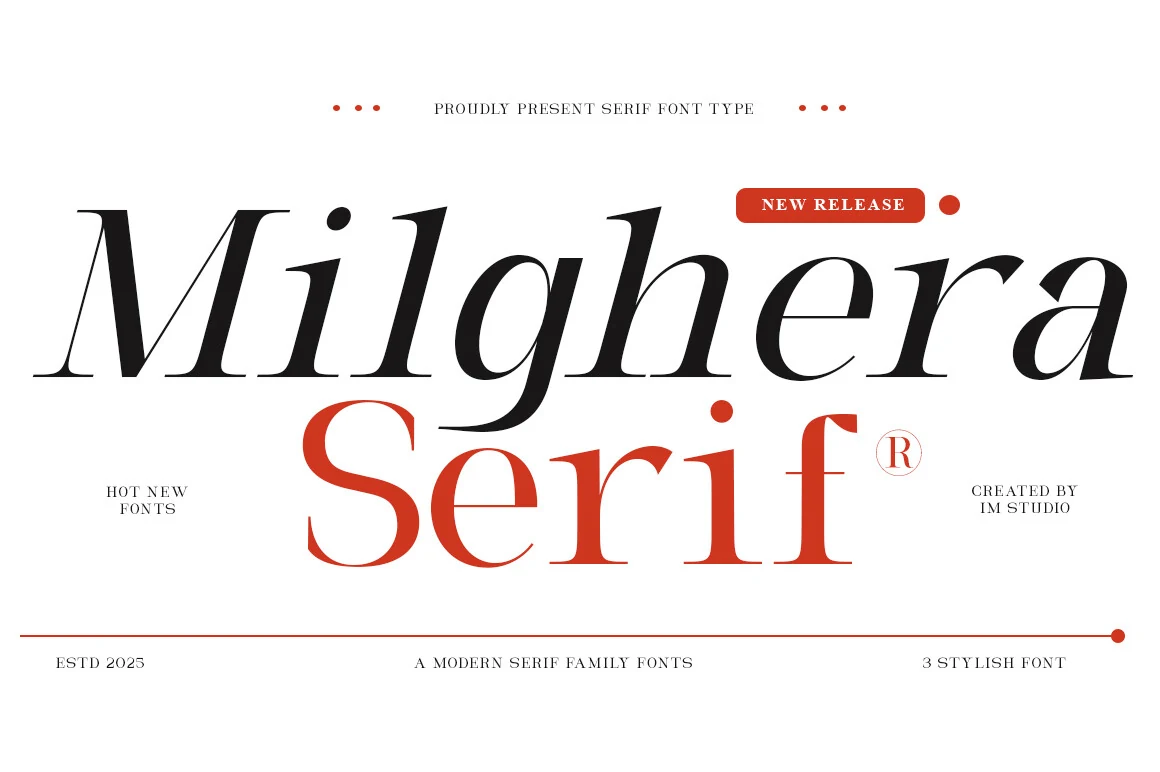
Best For: branding, magazine covers, fashion branding, editorial designs
Milghera Serif Font has the kind of high-contrast drama that feels instantly editorial. The letterforms are slim and elongated, with razor-thin hairlines, broad curves, and a softly slanted rhythm that gives headlines a polished fashion presence rather than a cold geometric look.
In a roundup of Modern Serif Fonts, Milghera stands out when you use its lighter style for oversized titles and bring in the bolder cut for supporting lines or brand marks. Keep tracking fairly tight and let the negative space do the work—those delicate serifs and sweeping joins read best in short, prominent text.
Wolmer Font
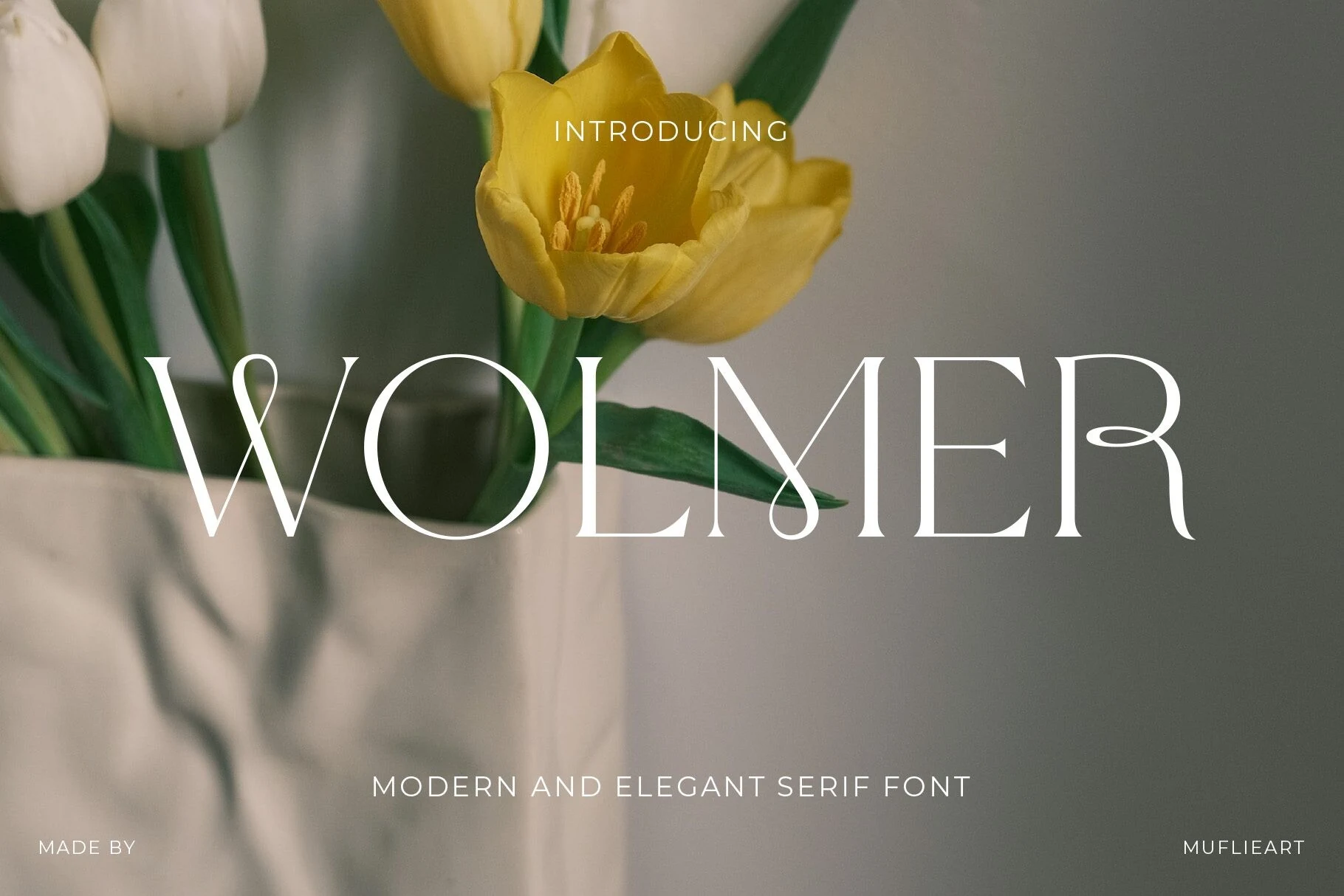
Best For: branding, magazine covers, fashion branding, editorial designs
Wolmer Font has a refined editorial presence built on tall proportions, crisp contrast, and beautifully fluid detailing. The preview shows slender stems paired with sweeping teardrop terminals and unusual crossbar connections, so even a single word feels styled rather than merely set.
If you are collecting Modern Serif Fonts with a fashion-led tone, Wolmer is strongest in large display sizes where those curved joins and airy counters stay visible. Keep body copy separate and let Wolmer handle the headline layer, especially in layouts that need soft luxury without losing structure.
Things Font
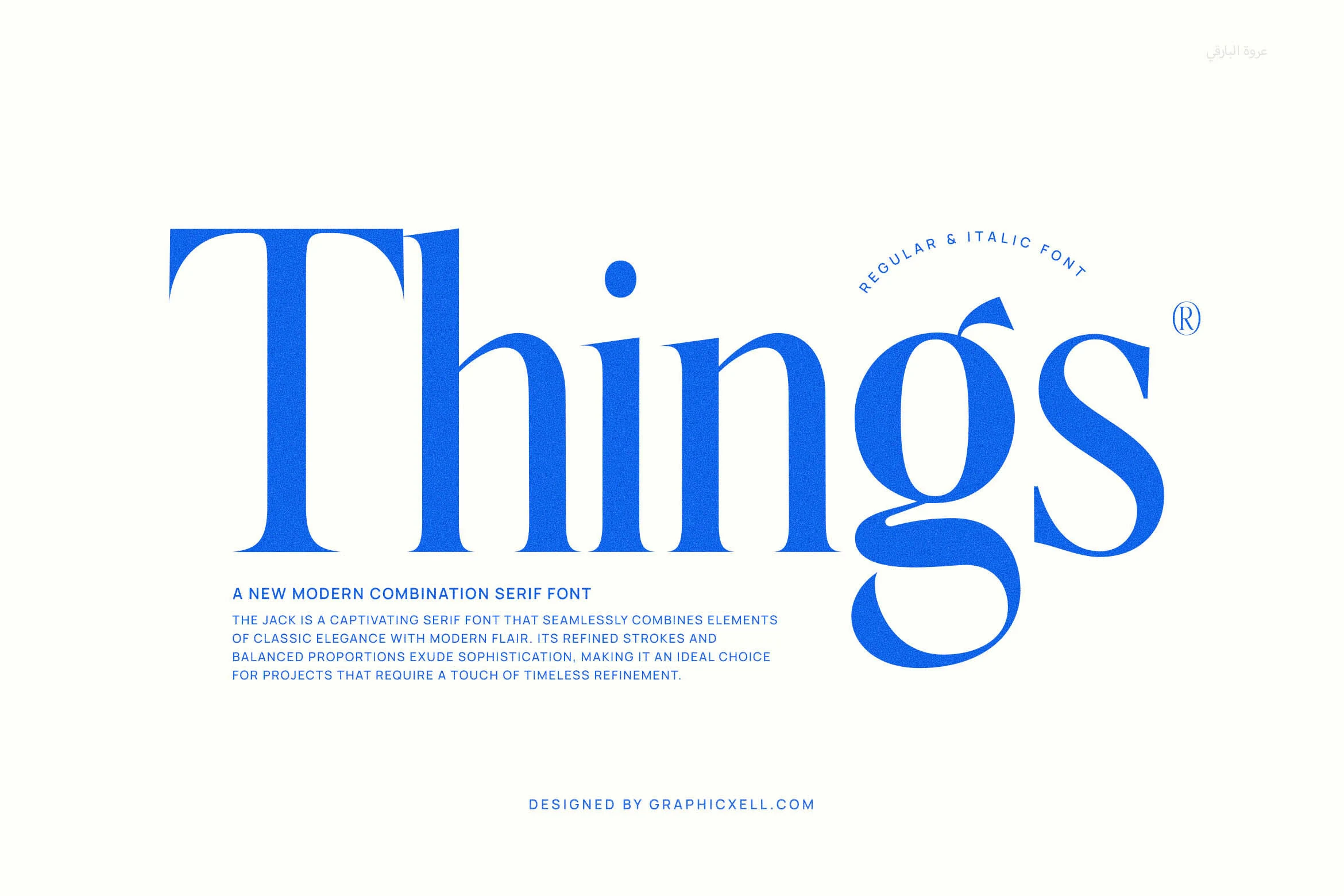
Best For: branding, magazine covers, headlines, editorial designs
Things Font has a sleek editorial feel, with tall stems, sharp contrast, and smooth curves that keep the serif structure elegant rather than severe. The oversized capital T and the sculpted tail on the g give it a stylish rhythm, while the clean proportions help the wordmark feel polished and modern.
For Modern Serif Fonts roundups, Things stands out in headlines, covers, and brand titles where the letterforms have room to breathe. It performs best in short phrases at larger sizes, and slightly relaxed spacing helps those fine joins and dramatic curves stay crisp instead of closing up.
Grandeur – Elegant Classic Serif Font
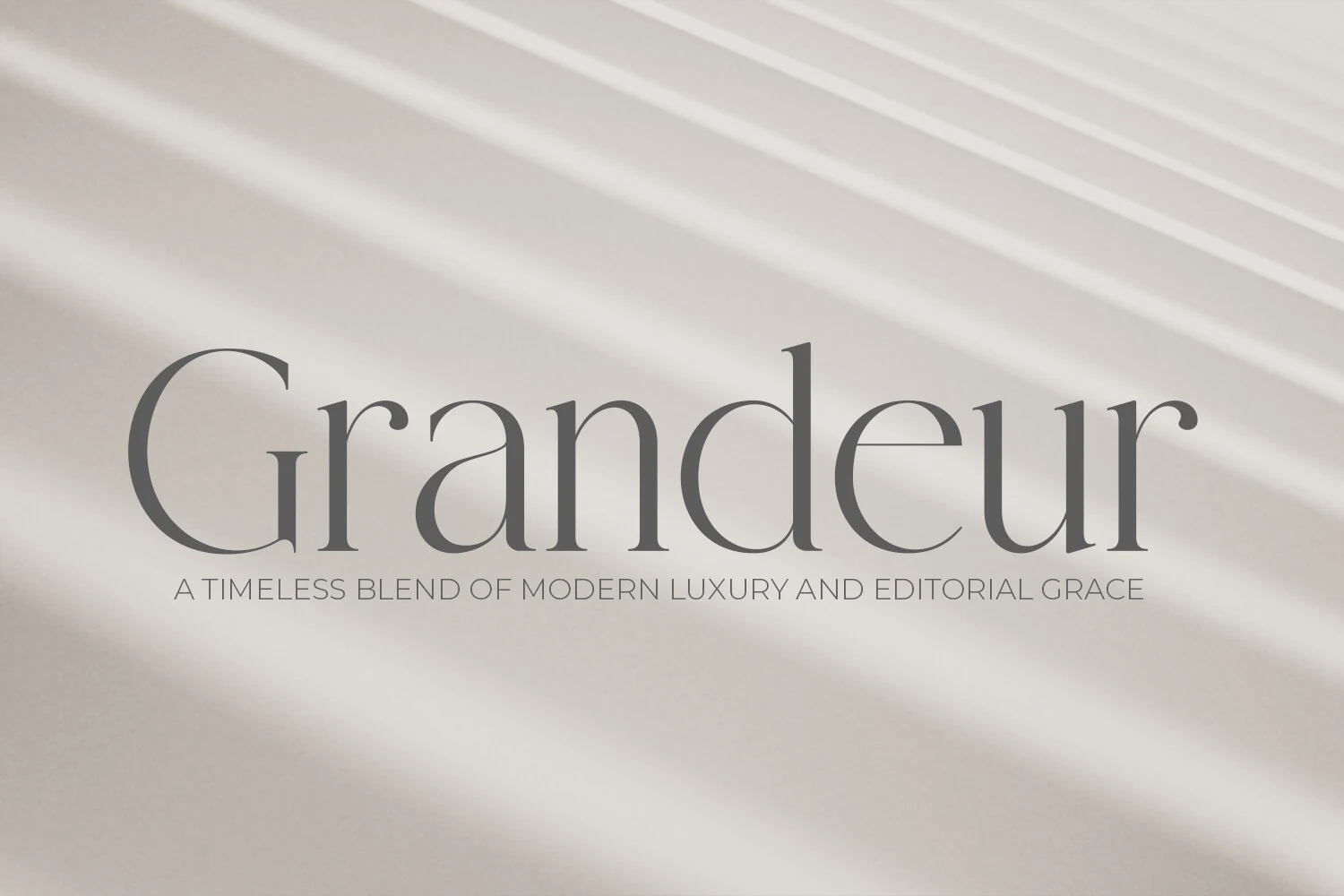
Best For: branding, magazine covers, editorial designs, luxury designs
Grandeur has a calm, polished presence built from slim high-contrast strokes, tall ascenders, and wide open counters. The letterforms feel lightly sculpted rather than ornate, which gives the serif a refined print character with a softer, more contemporary finish.
For anyone collecting Modern Serif Fonts with an editorial slant, Grandeur shines in titles, mastheads, and upscale branding where its proportions can stay visible. Give it generous scale and clean surrounding typography, and the delicate joins and elongated curves will carry the hierarchy beautifully.
Editorium Serif Font
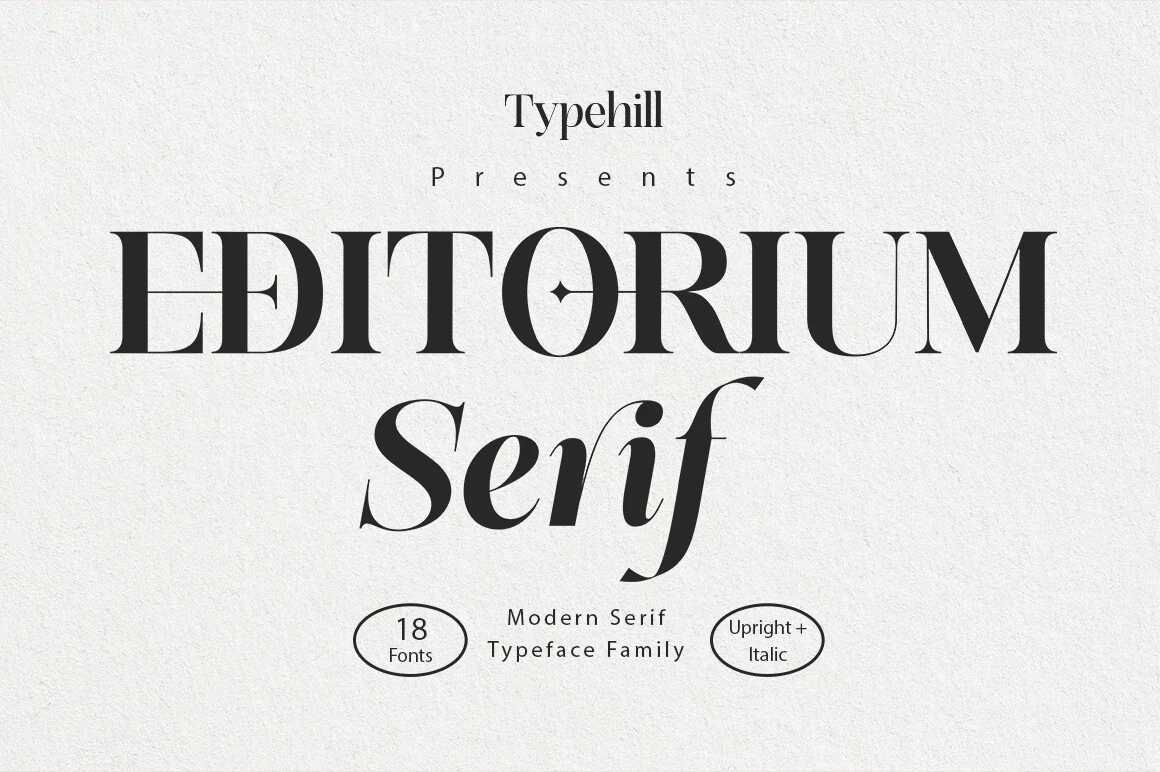
Best For: editorial designs, magazine covers, branding, headlines
Editorium Serif Font leans into a polished editorial look, pairing tall high-contrast capitals with a softer italic companion that adds movement without losing structure. The sharp serifs, narrow joins, and clean counters create a composed rhythm that feels especially suited to magazine-style typography.
For Modern Serif Fonts collections, Editorium is strongest when the upright styles handle main heads and the italic steps in for subheads or pull quotes. Its variable design helps refine hierarchy with small shifts in tone, and the details read best at display sizes where the contrast and spacing can breathe.
Aveloire Font
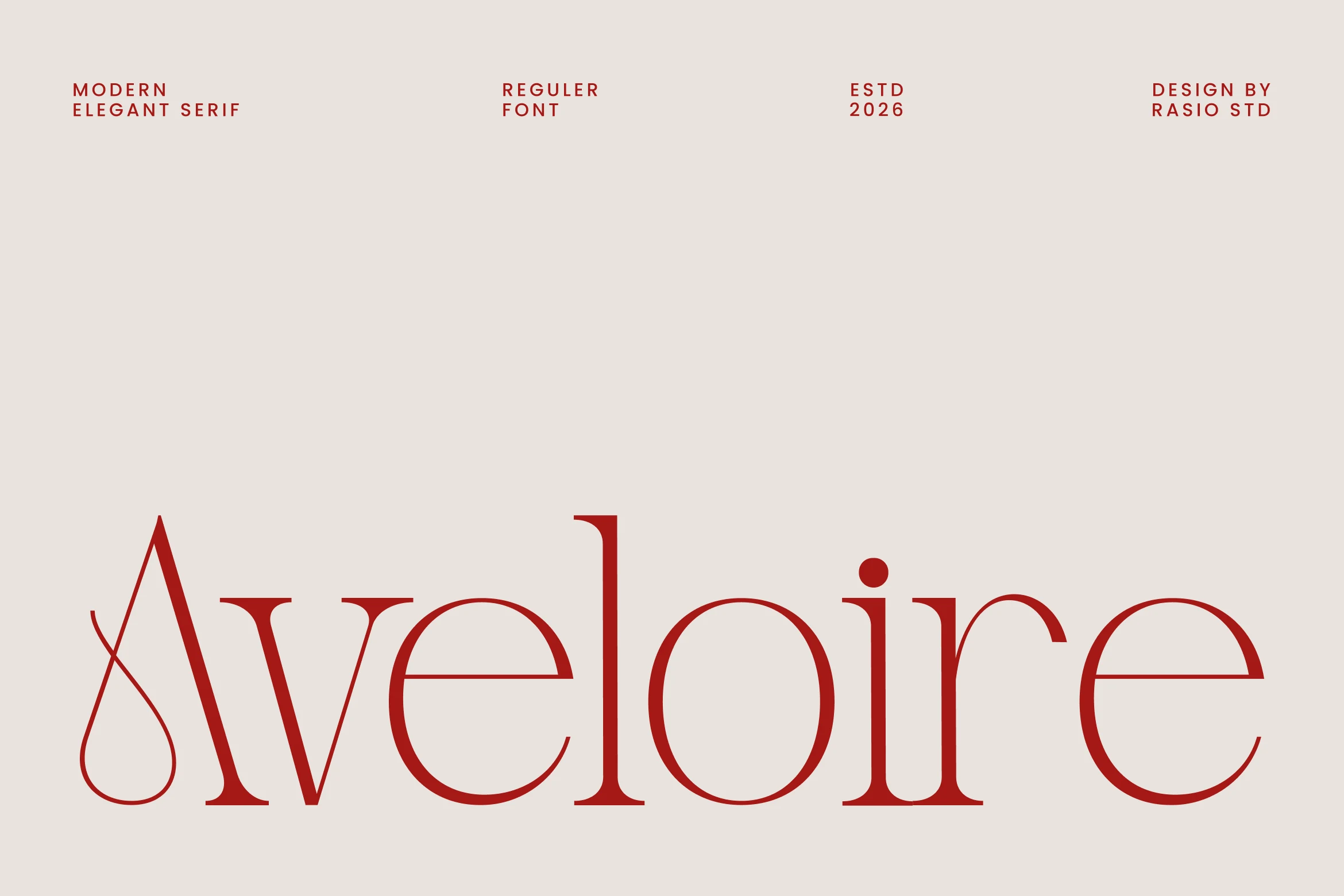
Best For: branding, magazine covers, fashion branding, editorial designs
Aveloire Font feels poised and airy, with refined proportions, slim serifs, and a striking capital A that opens with a looping teardrop flourish. The rest of the word keeps a smooth, balanced rhythm, pairing thin hairlines with rounded bowls so the overall texture stays elegant rather than overly decorative.
If your Modern Serif Fonts shortlist leans editorial, Aveloire is strongest in large headlines where its contrast and delicate terminals remain visible. It suits fashion-facing layouts especially well, and a little extra scale helps the crossbars, curves, and narrow spacing hold their polish in branding or magazine work.
Montage Font
Best For: branding, editorial designs, luxury designs, fashion branding
Montage Font leans into restraint rather than drama. Its letterforms are thin, airy, and sharply refined, with delicate serifs, generous spacing, and a calm contrast that makes the words feel polished instead of heavy. The overall effect is quiet luxury, especially in large titles where the long proportions have room to breathe.
Used within Modern Serif Fonts, Montage is strongest when you want a clean, elevated tone for identity work or editorial covers. The fine strokes keep compositions light, so pairing it with ample margins and a simple secondary sans helps preserve its elegance while giving headings a clear, sophisticated hierarchy.
Ethereal Font
Best For: branding, editorial designs, fashion branding, luxury designs
Ethereal Font has the crisp drama of a fashion serif, with tall contrast, hairline joins, and broad curves that keep the word shapes open and graceful. In the preview, the lowercase letters feel especially polished, balancing thin strokes with fuller verticals so the font looks airy rather than fragile.
Among Modern Serif Fonts, this one is best used where scale and spacing can show off its refined proportions. The family’s multiple weights help you build a cleaner title hierarchy across logos, covers, and brand materials, while the distinctive terminals give short words a stylish editorial finish.
The Foriene Serif Font
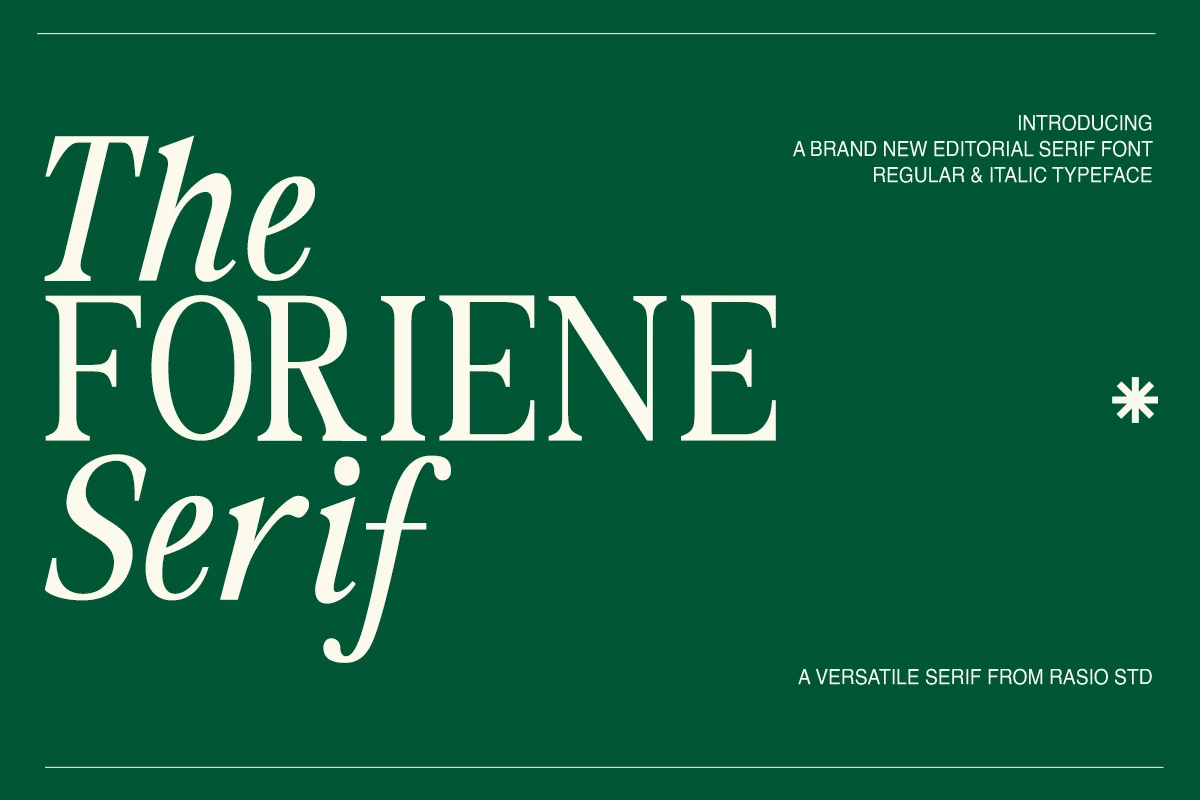
Best For: branding, editorial designs, magazine covers, fashion branding
The Foriene Serif Font has a poised editorial voice, with balanced proportions, graceful contrast, and a clear shift between upright and italic styles. In the preview, the tall capitals feel crisp and composed, while the italic forms add softness and movement, giving headlines a polished rhythm without losing readability.
For Modern Serif Fonts, Foriene is especially effective when you want a clean hierarchy across covers, branding, or ad layouts. Its refined serif structure holds up beautifully in large titles, and the regular-plus-italic pairing helps introduce contrast within one family, making it easier to separate names, subheads, and feature lines.
Luxury & High-Contrast Modern Serif Fonts
This group focuses on sharp contrast, fine hairlines, and upscale display details for luxury logos, premium packaging, wedding designs, and elegant headlines.
Luxurimo Font
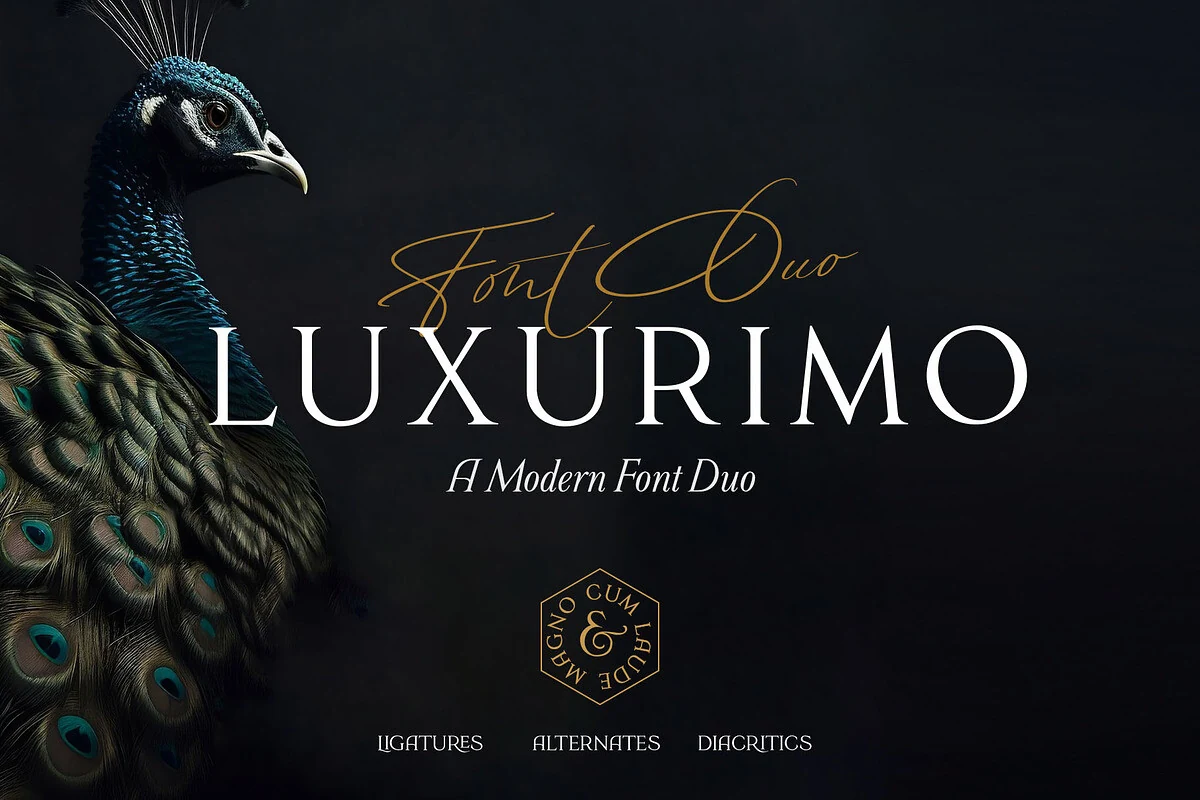
Best For: luxury designs, branding, wedding designs, high-end designs
Luxurimo Font pairs a crisp modern serif with a fine signature script, giving the layout a controlled luxury rhythm rather than a purely decorative one. The serif side uses tall capitals, sharp contrast, and wide spacing, while the script adds narrow strokes and sweeping loops for a softer secondary accent.
For Modern Serif Fonts collections, this duo works best when the serif carries the main title and the script stays above or beside it as a small mark. Keep the contrast intentional: generous letter spacing on the capitals, restrained script length, and enough dark or quiet space around both styles so the hierarchy stays clean.
Dihot Font
Best For: editorial designs, magazine covers, branding, luxury designs
Dihot Font has the crisp elegance you expect from a Didot-inspired serif: strong verticals, razor-thin hairlines, and generous contrast that makes each capital feel polished and deliberate. The wide spacing in the preview adds even more air, giving the letters a refined, gallery-like presence.
Within Modern Serif Fonts, Dihot is especially effective for mastheads, luxury branding, and editorial titles where its fine details can stay visible. Keep it at larger sizes and avoid crowding the tracking too much, since the sharp serifs and delicate joins do their best work when the composition feels open and controlled.
Amsio Elegant Serif Font
Best For: fashion branding, magazine covers, luxury designs, packaging
Amsio Elegant Serif Font has a polished editorial presence, built around tall proportions, heavy vertical stress, and fine hairline curves. Its sharp serif details and sweeping internal shapes give the letters a dramatic fashion-magazine rhythm without making the wordmark feel crowded.
For Modern Serif Fonts, Amsio works best when the typography is allowed to act as the main visual element. Use generous contrast against the background and avoid overly tight tracking, since the thin strokes and curved intersections need clear space to keep logos, covers, and packaging titles crisp.
Vogane Font
Best For: logos, editorial designs, packaging, high-end designs
Vogane has a clean fashion-led presence, with crisp contrast, smooth oval counters, and a few sculpted details that keep the letterforms from feeling rigid. The generous curves and neatly cut serifs give it a polished rhythm, while the elegant ligature styling adds a softer, more distinctive signature.
Within Modern Serif Fonts, this one feels especially strong for identity work and refined editorial layouts. Its alternates help shape a more custom-looking wordmark, and the design reads best when you keep the hierarchy simple and let the spacing stay open enough for the delicate joins and terminals to show clearly.
Hermione Modern Serif Font
Best For: logos, branding, editorial designs, fashion branding
Hermione Modern Serif Font has a sleek editorial look built on crisp contrast, narrow joins, and tall capitals with poised, sculpted curves. In the preview, the letterforms feel refined but assertive, giving large headings a polished fashion tone rather than a delicate, airy one.
If you are comparing Modern Serif Fonts, Hermione is strongest in short display settings where its stylistic alternates and ligatures can shape more distinctive wordmarks. Those features help titles feel less generic and more custom, especially for branding or cover layouts where a few elegant letters need to carry the whole composition.
Swash & Ligature Modern Serif Fonts
These modern serifs add decorative curves, ligatures, and swashed terminals for custom-looking logos, invitations, beauty branding, and short display titles.
Bezoria – Elegant Serif Font
Best For: logos, wedding designs, branding, editorial designs
Bezoria has a poised, fashion-leaning silhouette, with crisp contrast, fine hairlines, and generous curves that keep the serif feeling graceful rather than stiff. The oversized capital B and the sweeping tail on the final letter add a refined flourish, so even a short wordmark feels polished.
For designers exploring Modern Serif Fonts, Bezoria works best when the main line stays clean and prominent, then quieter supporting text handles the details. Its elegant swashes and narrow joins read beautifully in logos, stationery, and editorial headings where a little extra space preserves the shape.
Notica Serif Font
Best For: logos, branding, packaging, wedding designs
Notica Serif Font has a poised display look, built from tall capitals, crisp serif edges, and strong thick-to-thin contrast. The looping swashes threaded through a few letters give the design a romantic lift, while the clean proportions keep it feeling polished rather than overly decorative.
If you’re exploring Modern Serif Fonts, Notica shines in short titles and identity work where its elegant details can stay visible. Use the ligatures or stylistic alternates with restraint, pair it with quieter supporting type, and leave enough spacing around the wordmark so the fine strokes and sweeping terminals remain sharp.
Rusilla Serif Font
Best For: invitations, logos, wedding designs, fashion branding
Rusilla Serif Font has a refined fashion-editorial presence, with high contrast strokes, very slim joins, and long sweeping terminals that give the capitals a graceful, almost calligraphic flow. In the preview, the oversized letters stretch elegantly across the layout, while the sharp serifs keep the overall look crisp and formal.
If you’re exploring Modern Serif Fonts, Rusilla works best when you let those dramatic curves lead the composition. Short titles, logo treatments, and invitation headings suit it well, especially when paired with generous spacing so the flourishes and elongated forms do not crowd each other.
Balgind Modern Serif Font
Best For: logos, editorial designs, beauty branding, fashion branding
Balgind Modern Serif Font brings high contrast, elongated curves, and dramatic ligatures into a distinctly polished serif style. The preview shows slim joins and sweeping terminals that soften the structure, giving the letters a graceful feminine flow while keeping the overall silhouette crisp and luxurious.
For Modern Serif Fonts, Balgind stands out in short display settings where those ligatures can shape a more custom wordmark. It works best when you give the letterforms room to breathe, especially in logos, covers, or beauty-led branding where the refined curves become part of the visual identity.
Bold & Structured Modern Serif Fonts
Choose these fonts when the design needs stronger weight, sturdy proportions, or architectural impact for posters, signage, headers, and bold brand marks.
Nudes Slab Serif Font
Best For: logos, book covers, headlines, signage
Nudes Slab Serif Font has a soft graphic presence that feels more friendly than formal. The preview shows broad slab serifs, rounded joins, and compact counters, giving each letter real weight while keeping the overall tone clean and approachable.
In a set of Modern Serif Fonts, this one is a strong choice when you want a sturdy headline without harsh edges. It works best in logos, covers, and short display lines, and a touch of extra spacing helps the thick strokes and curved terminals stay clear.
Patcher Font
Best For: fashion branding, editorial designs, magazine covers, luxury designs
Patcher Font has a confident editorial silhouette, with tall capitals, firm serifs, and clean high contrast that gives headlines a polished fashion tone. The broad proportions keep the wordmark readable, while the sharp edges and compact counters add enough authority to make short titles feel deliberate.
In a lineup of Modern Serif Fonts, Patcher works especially well when you want the main line to carry the whole composition. It suits branding, magazines, and packaging best at display size, where its contrast stays crisp and a little extra breathing room around the text helps the structure look refined rather than crowded.
Muzzaro Font
Best For: fashion branding, magazine covers, editorial designs, premium designs
Muzzaro Font has a commanding editorial look built around tall condensed proportions, crisp high-contrast strokes, and sharp serif cuts. The letters feel narrow and sculpted rather than delicate, which gives headlines a confident vertical rhythm and a polished luxury tone.
If your Modern Serif Fonts selection leans toward fashion and print-inspired layouts, Muzzaro is strongest in large titles where its slim structure can stay visible. It handles tight spaces well, but a little extra line spacing helps the dense forms breathe and keeps the contrast clean in covers, branding, or packaging-style compositions.
Luxena Font
Best For: logos, headlines, posters, luxury designs
Luxena Font has a tall, condensed serif build with heavy vertical stems, thin internal cuts, and sharply controlled curves. The narrow capitals give it a strict fashion-editorial rhythm, while the high contrast keeps the wordmark forceful rather than soft.
For Modern Serif Fonts that need impact, Luxena works best as a headline or logo face with generous tracking and strong background contrast. The supplied OTF and TTF files support practical use across common design software without changing the font’s clean, precise display character.
Charman Serif Font
Best For: logos, branding, headlines, luxury designs
Charman Serif Font has a heavy, polished serif structure with rounded stress, firm vertical strokes, and soft bracketed terminals that keep the letters bold without looking harsh. Its wide lowercase forms give headlines a confident rhythm, while the italic styling in the preview adds a more editorial, dressed-up note.
For Modern Serif Fonts, Charman is useful when a layout needs strong title hierarchy rather than delicate detail. The 20-weight family gives designers room to build contrast between logo marks, section titles, and supporting text while keeping the same refined serif voice across the composition.
Mirow Serif Font
Best For: branding, signage, editorial designs, high-end designs
Mirow Serif has a stately display presence, with structural all-caps forms, sharp slab serifs, and strong vertical stems that make each letter feel carved and deliberate. The symmetrical counters keep the layout disciplined, so even at a large scale the texture stays clean rather than busy.
Among Modern Serif Fonts, Mirow is especially effective when you want typography to carry authority on its own. Its high contrast and substantial proportions suit short headlines, logos, and signage best, and it performs well with generous spacing and a restrained layout that lets the architectural letterforms hold the visual weight.
Luxora Serif Font
Best For: branding, headlines, modern designs, elegant designs
Luxora Serif Font has a polished display presence, yet the letterforms feel inviting instead of stiff. The preview shows medium contrast, broad curves, and slightly rounded serifs that soften the classic structure, giving the capitals a clean rhythm with a gentle, approachable finish.
Within Modern Serif Fonts, Luxora works especially well for short headlines and identity pieces where its open shapes can stay crisp at scale. Its balanced proportions make hierarchy easy to control, and pairing it with a quiet sans helps the softer serif details hold the spotlight without crowding the layout.
Retro & Handcrafted Modern Serif Fonts
This set covers nostalgic, slab, and hand-drawn serif styles that work well for posters, labels, rustic branding, quotes, and more character-led layouts.
Huntro – Elegant Retro Serif Font
Best For: branding, posters, retro designs, editorial designs
Huntro has a confident retro voice, built from thick verticals, crisp contrast, and sculpted serifs that give the letters a carved, poster-like presence. The preview also shows distinctive curves in the H, U, and R, which keep the design elegant rather than heavy.
Within a collection of Modern Serif Fonts, Huntro works best when you let it lead the composition in short headlines or brand names. Its stronger details hold up well at display size, and pairing it with simpler secondary text helps the dramatic shapes and vintage rhythm stay clear.
Retpack Serif Font
Best For: posters, website headers, social media graphics, retro designs
Retpack Serif Font has a sturdy retro silhouette with broad serifs, rounded bowls, and a slightly softened structure that keeps the heavy weight from feeling stiff. The capitals read bold and confident, with enough curve in the counters and terminals to give the face a friendly vintage pull.
If you want Modern Serif Fonts with a nostalgic edge, Retpack is strongest in large titles for digital banners, posters, and social graphics. Its shape holds attention quickly, so short words and compact headline lines work best, especially when paired with simpler secondary text that lets the retro forms stay in focus.
Wildflower Apothecary Font
Best For: logos, invitations, quotes, T-shirts
Wildflower Apothecary Font has a gentle handmade feel, with softly uneven serifs, rounded curves, and the kind of organic wobble that keeps it warm rather than polished. The letterforms feel rustic and personal, which gives larger words a calm, handcrafted presence.
If you like Modern Serif Fonts with more character, this one works especially well for signs, labels, and invitation-style layouts. The regular and bold variations help build simple hierarchy, and the slightly imperfect edges look best when you keep the text short enough for that texture to stay visible.
The Serif Hand Font
Best For: branding, headlines, editorial designs, modern designs
The Serif Hand Font has the charm of hand-drawn lettering, but its structure stays disciplined. The preview shows tall, narrow uppercase forms, steady line weight, and lightly flared serif endings that keep each letter crisp and easy to read. That balance gives it personality without turning overly decorative.
Within Modern Serif Fonts, it works especially well when you want a human touch without losing order. Its condensed proportions help longer headlines sit neatly in narrow spaces, and the even rhythm makes title hierarchy feel clean across branding, posters, and editorial layouts.
Conclusion
Start with editorial and fashion serifs if you need magazine polish, choose high-contrast or swash styles for luxury branding, and use bold, retro, or handcrafted options when the design needs stronger personality.